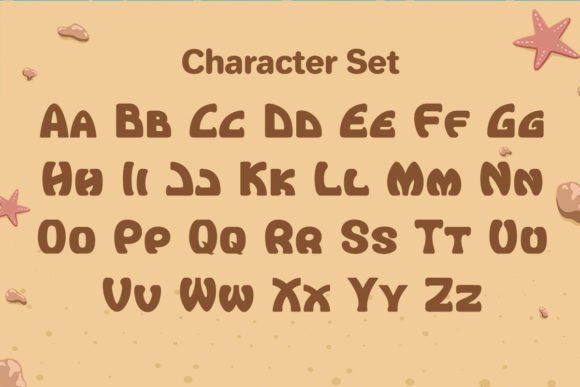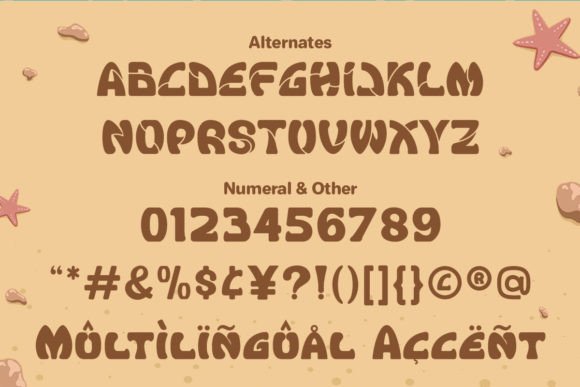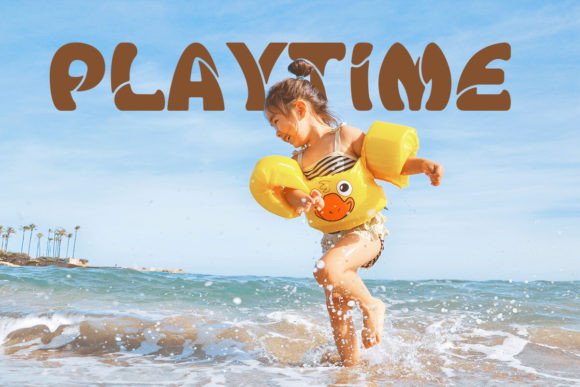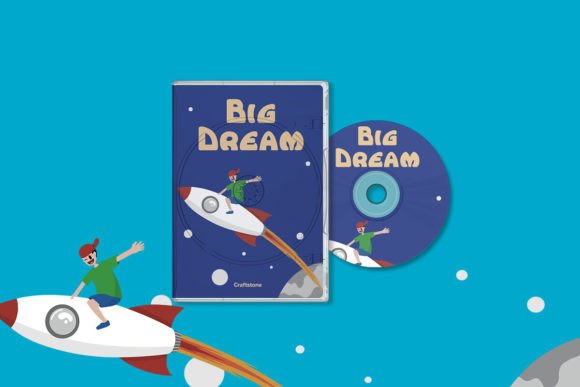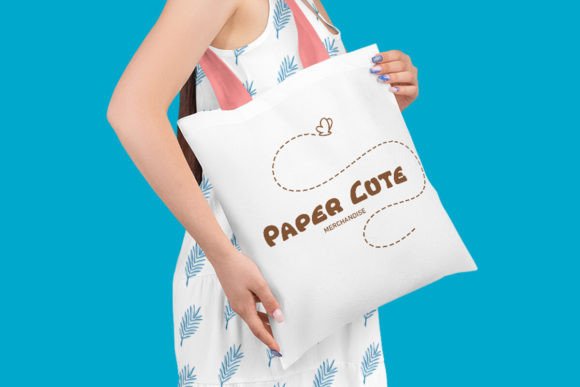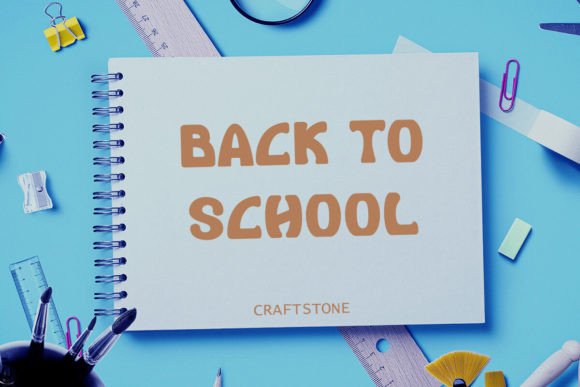
Introducing Craftstone: The Ultimate Fun and Whimsical Font for Your Creative Projects
Are you looking for a font that can add a touch of joy and playfulness to your designs? Look no further than Craftstone, a delightfully fun and whimsical font that’s perfect for children’s designs, playful themes, and relaxed settings. With its unique personality and versatile alternates, Craftstone is the ideal choice for designers and crafters who want to infuse their projects with a lighthearted and creative flair.
The Perfect Font for Kids and Playful Themes
Craftstone is specifically designed to bring a sense of joy and playfulness to your designs. Its fun and quirky style makes it perfect for children’s books, educational materials, and kids’ party invitations. The font’s playful spirit is sure to captivate young audiences and add a touch of whimsy to your projects. Whether you’re creating a children’s magazine, a kids’ app, or a playful advertisement, Craftstone is the perfect choice.
Relaxed and Laid-Back Vibes
Craftstone is not just limited to kids’ designs. Its relaxed and laid-back vibe makes it perfect for projects that require a casual and informal tone. Use Craftstone to create eye-catching posters, social media graphics, and blog posts that exude a sense of fun and approachability. The font’s unique personality shines through with its alternates, allowing you to craft a truly distinctive and charming look.
Unique Alternates for Endless Creative Possibilities
One of the standout features of Craftstone is its set of unique alternates. These alternates allow you to mix and match different glyphs to create a truly one-of-a-kind look. With Craftstone, you can experiment with different combinations of letters and glyphs to add a touch of personality to your designs. Whether you’re looking for a bold and playful look or a more subtle and whimsical feel, Craftstone’s alternates have got you covered.
Why Choose Craftstone?
So why choose Craftstone for your next project? Here are just a few reasons:
- Unique and playful design: Craftstone’s fun and whimsical style is sure to add a touch of joy to your designs.
- Versatile alternates: With Craftstone’s unique alternates, you can create a truly distinctive and charming look.
- Perfect for kids and playful themes: Craftstone is specifically designed for children’s designs and playful themes.
- Relaxed and laid-back vibes: Use Craftstone to create designs that exude a sense of fun and approachability.
Get Creative with Craftstone
Whether you’re creating for kids or seeking a laid-back vibe, Craftstone is the ideal font for your next project. So why wait? Get creative with Craftstone and bring a touch of whimsy and fun to your designs!